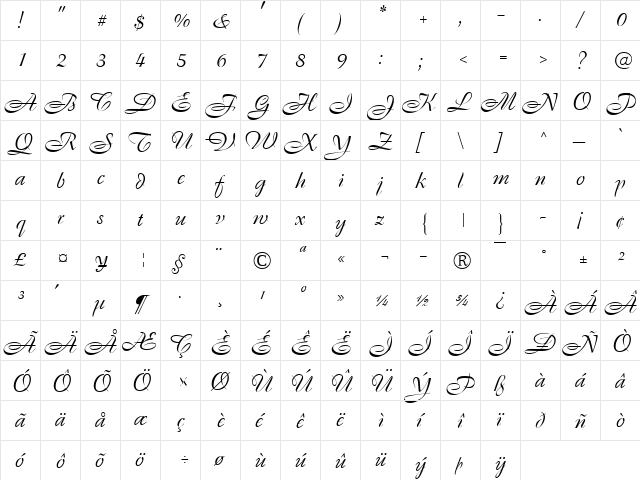
Regency Volante Regular
Design Context for Regency Volante Typeface
Regency Volante is a composed and adaptable typeface that performs quietly and consistently across a wide range of design contexts.